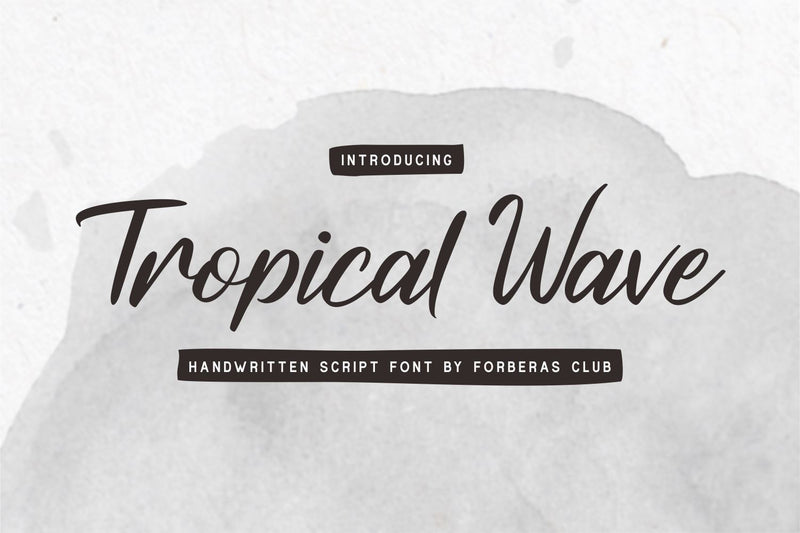
Tropical Wave
Tropical Wave is a beautiful and refined script font. It has a classy, elegant, and modern look that can be used for logos, branding, invitations, stationery, wedding designs, social media posts, and much more!